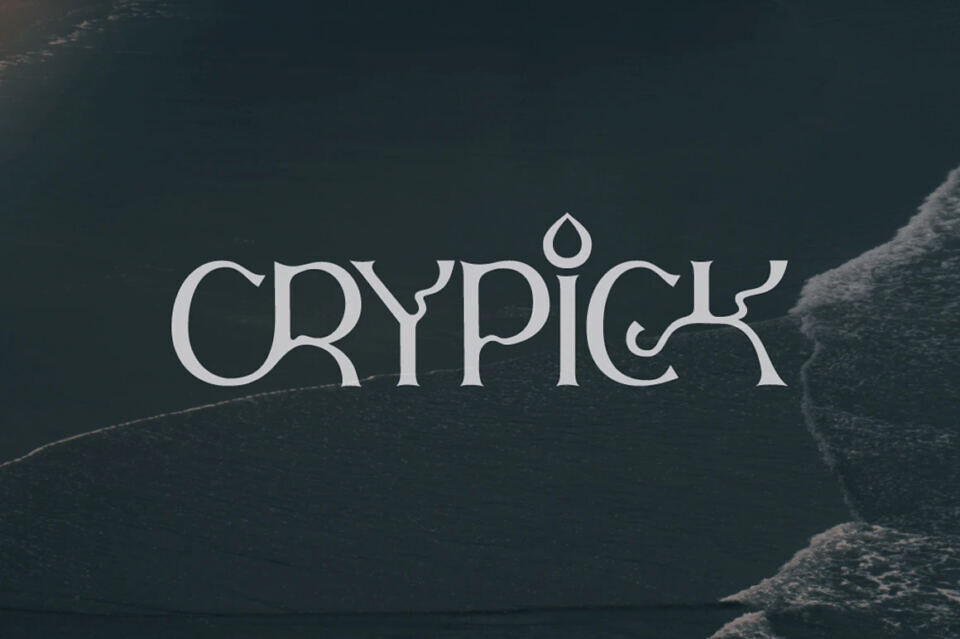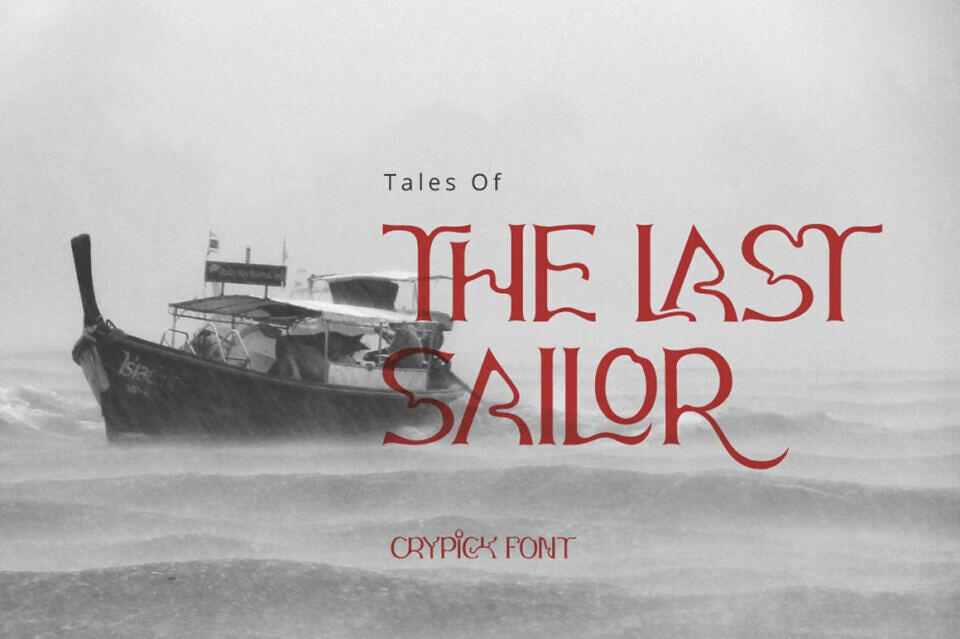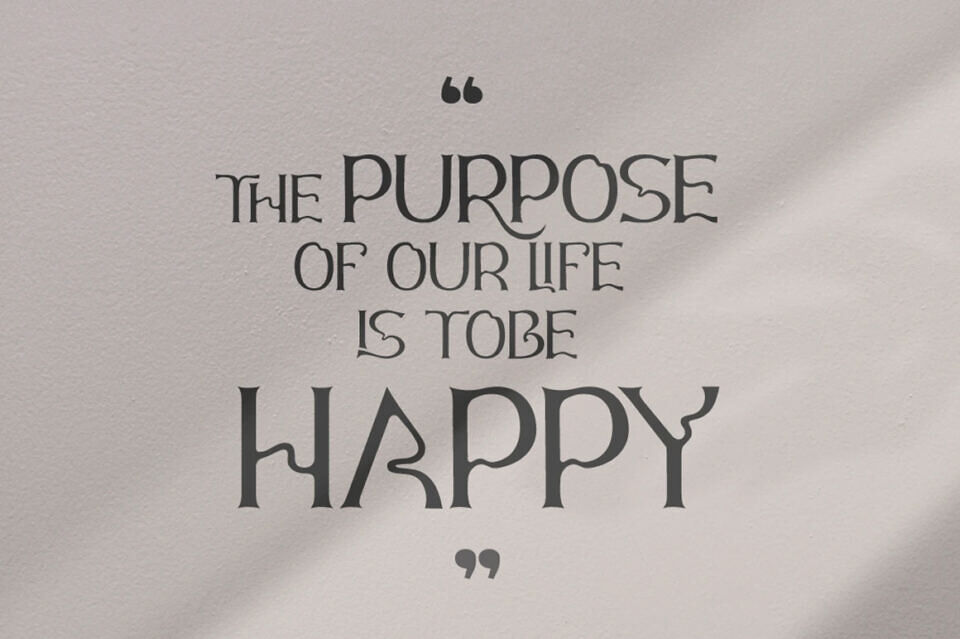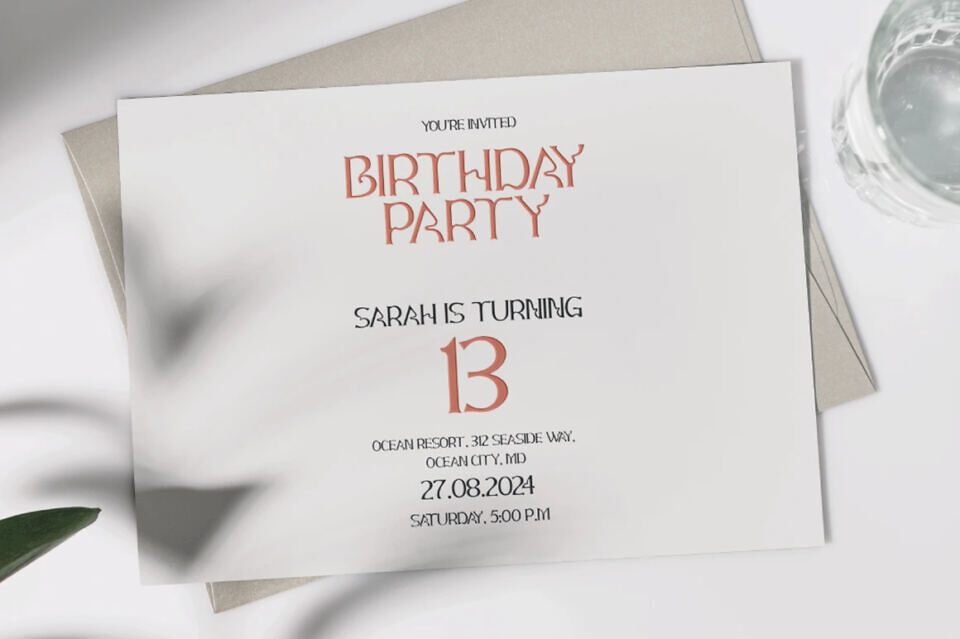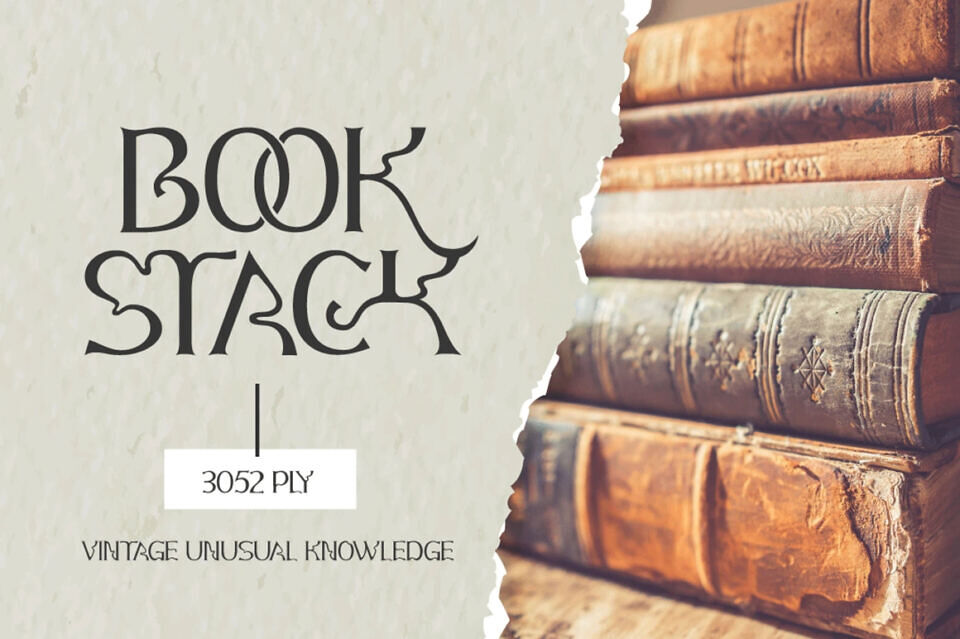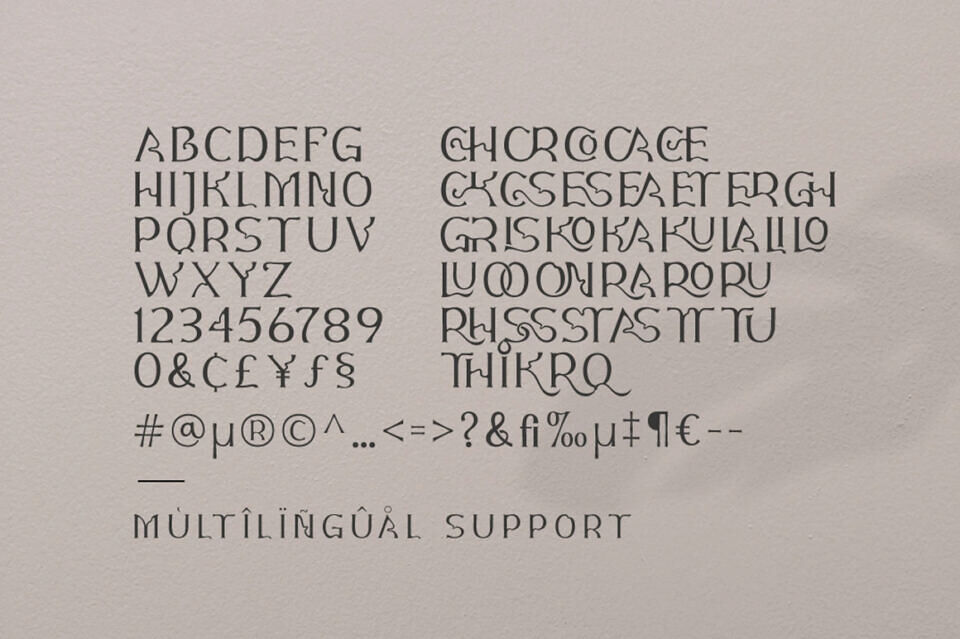
Crypick Font
Crypick is a Modern Serif Font, created with unique design. the parts of the font is simply watery looks inspired by ocean wave. This font comes with some ligatures and alternates, and already PUA encoded for easily accessed into optional Glyphs.
Crypick Font is simply designed to ease any design project such as invitational card, logo tagline, attentional flyer, magazine header, and much more!